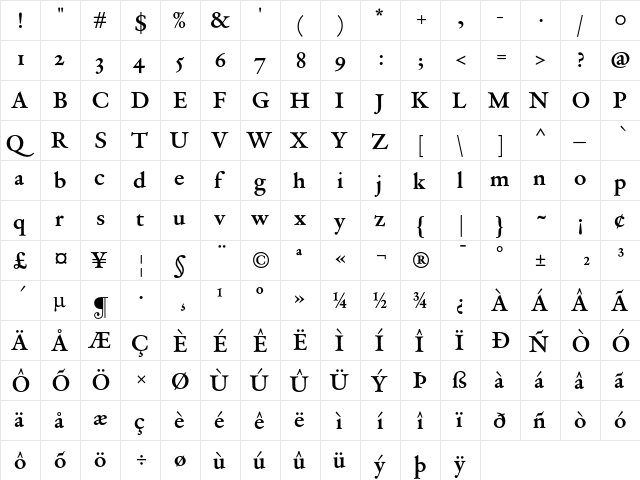
DTLVandenKeereSD Bold Font Preview
DTLVandenKeereSD Bold
Design Context for DTLVandenKeereSD Typeface
DTLVandenKeereSD is a composed and adaptable typeface that performs quietly and consistently across a wide range of design contexts. Its bold stroke weight gives it real presence on the page.